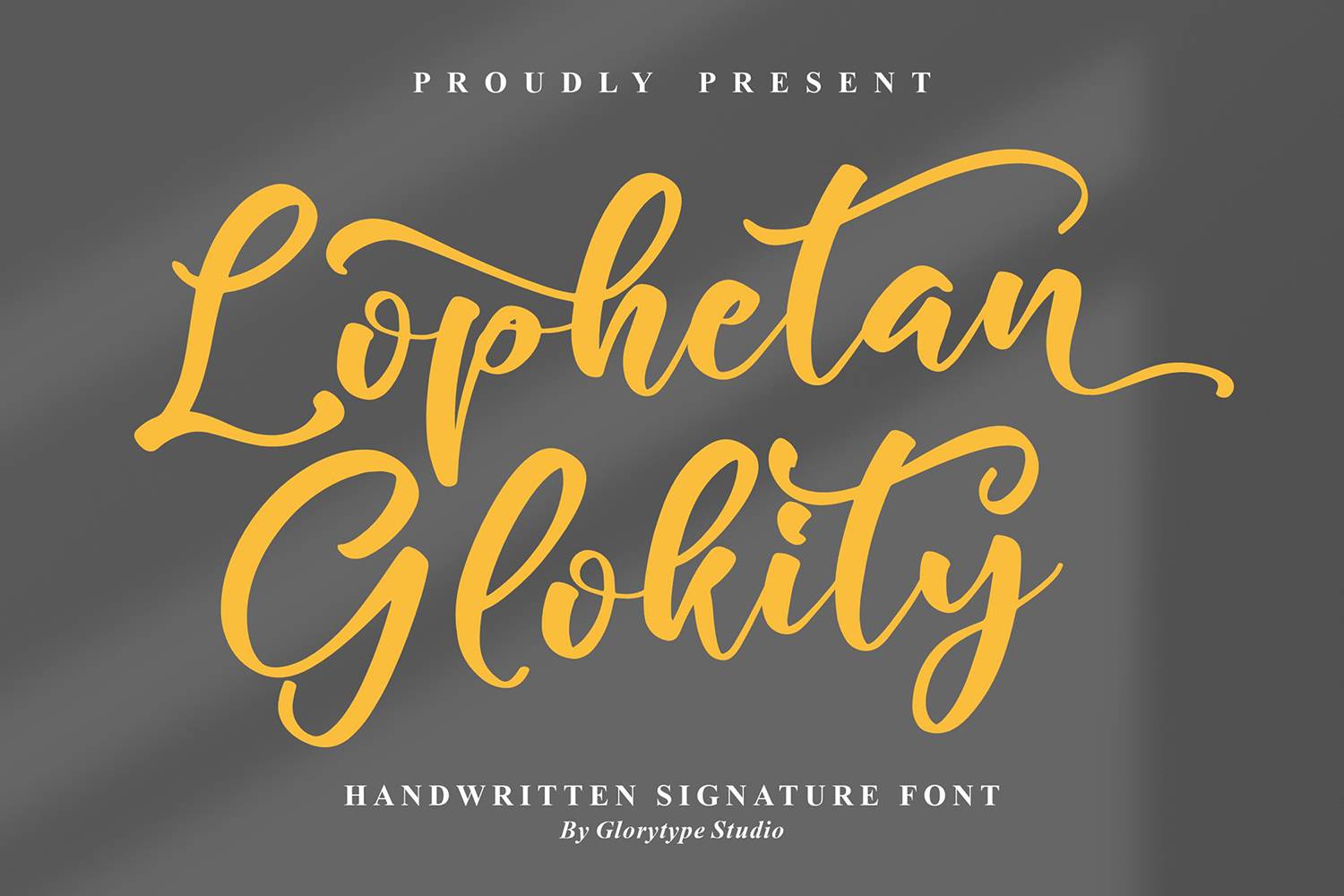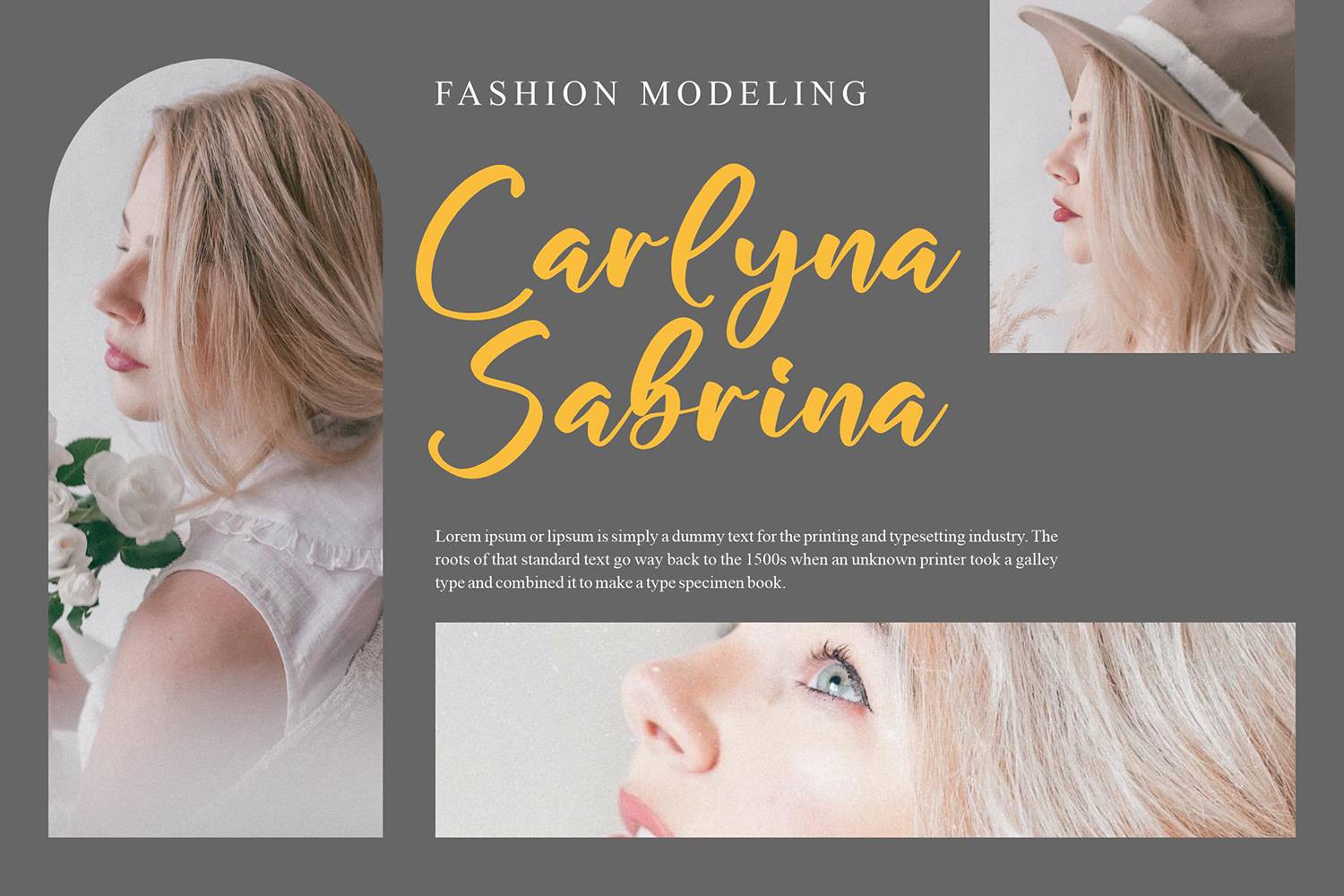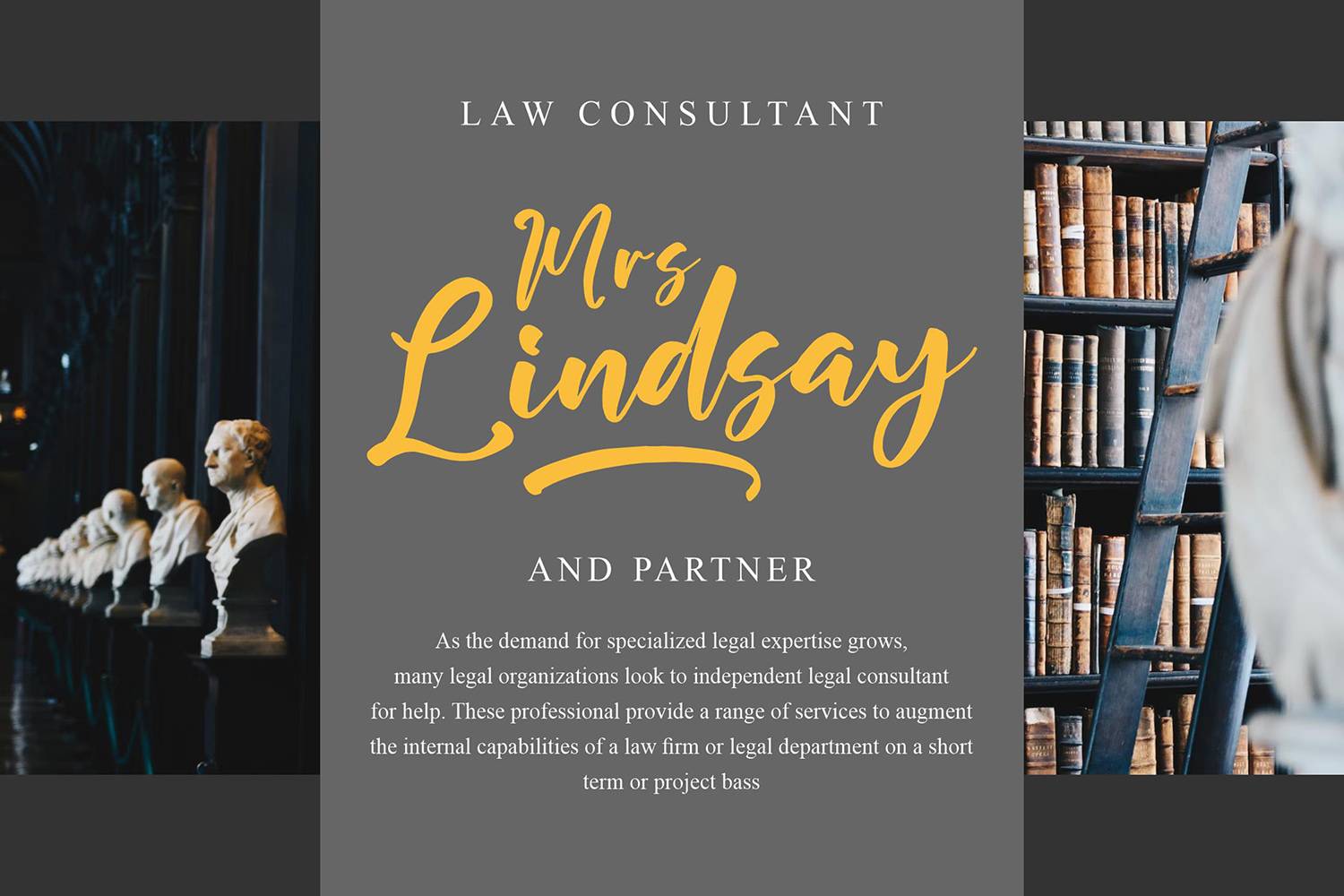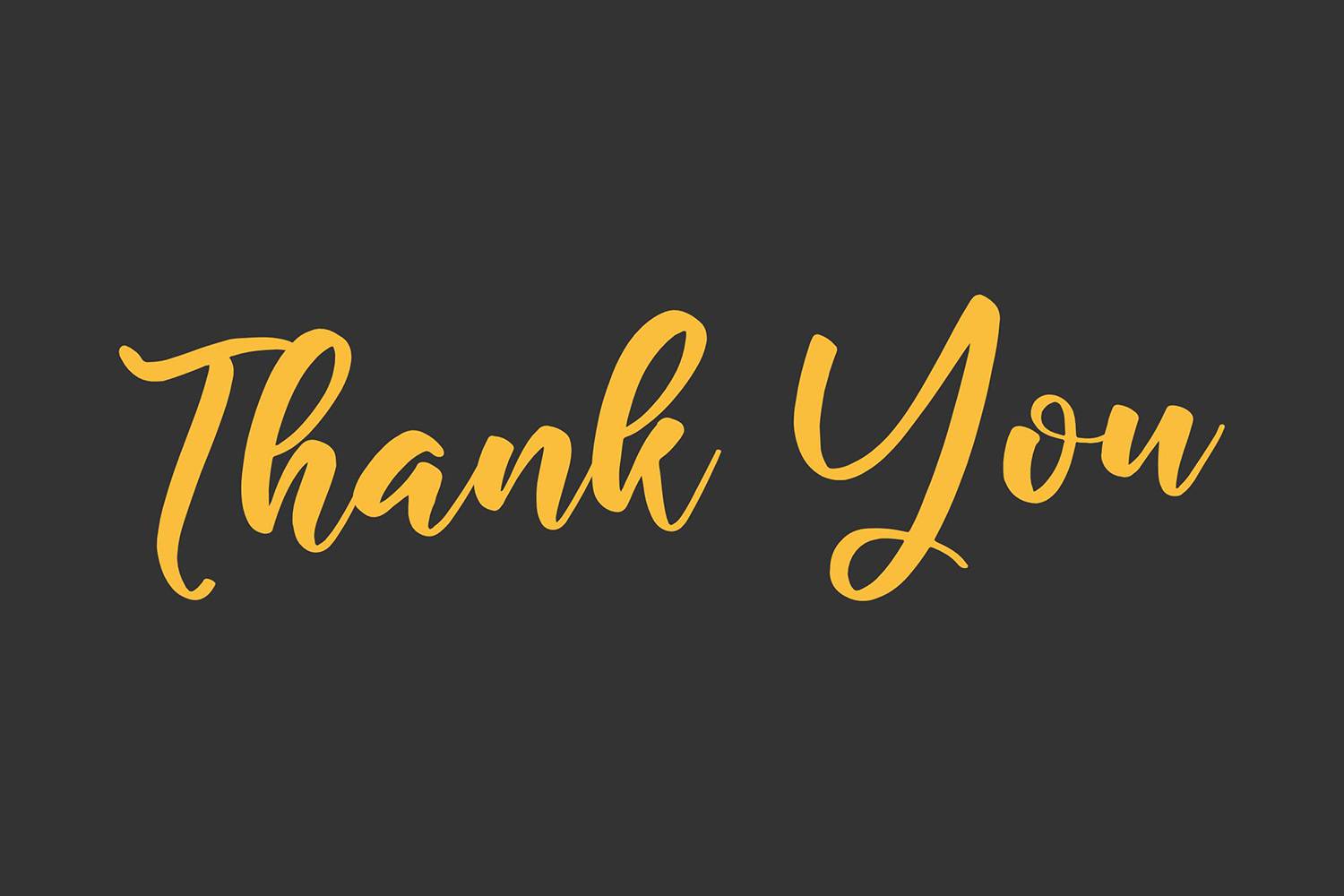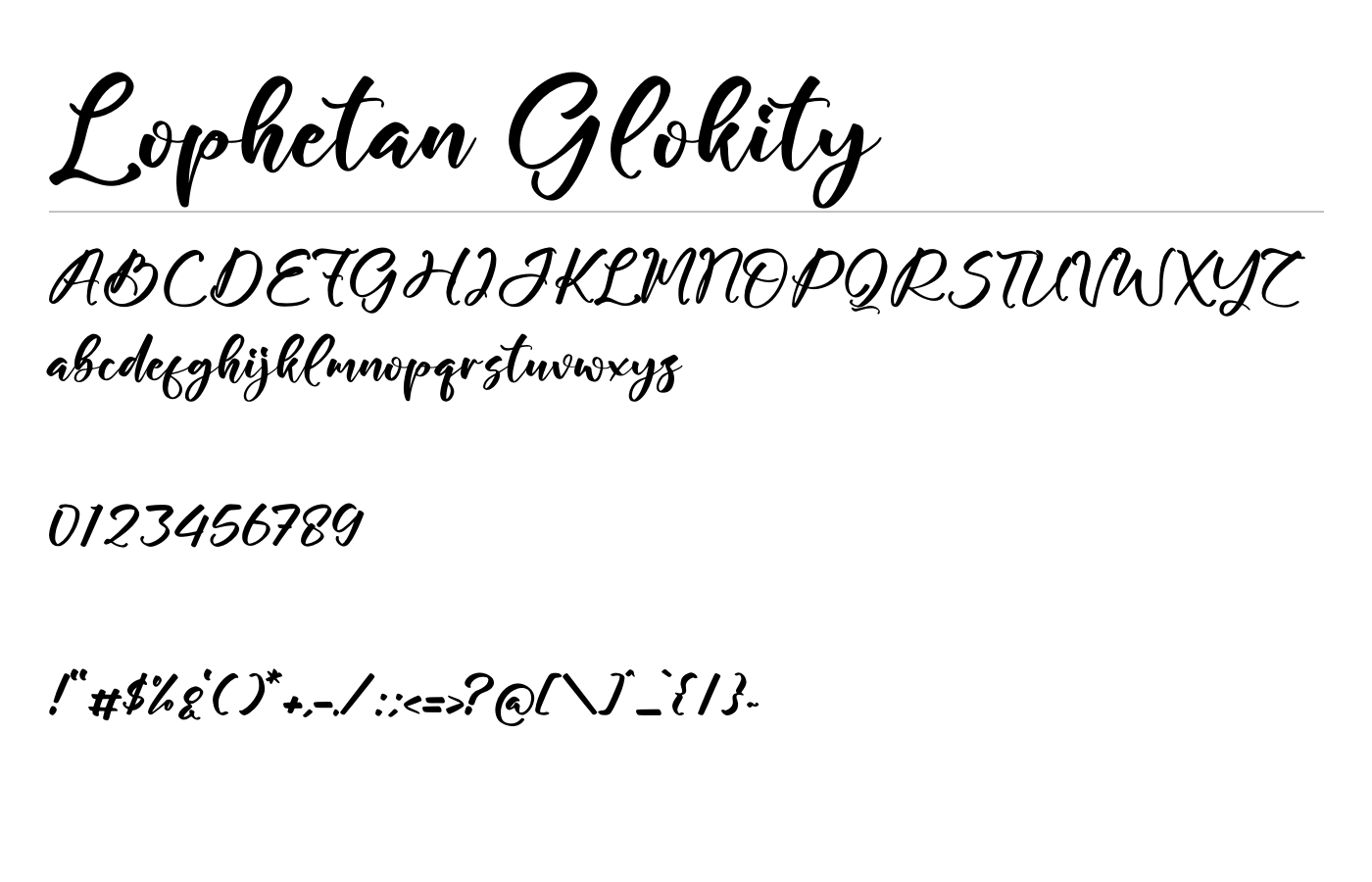
Lophetan Glokity is a lively script font with a handwritten feel, featuring smooth, flowing strokes and moderate contrast that add a touch of elegance and personality. Its medium weight and upright style make it versatile for invitations, branding, or social media, where a charming and approachable look is desired. This font works well in creative and casual contexts, perfectly blending warmth with a refined aesthetic.
Lophetan Glokity Font
About Lophetan Glokity Font